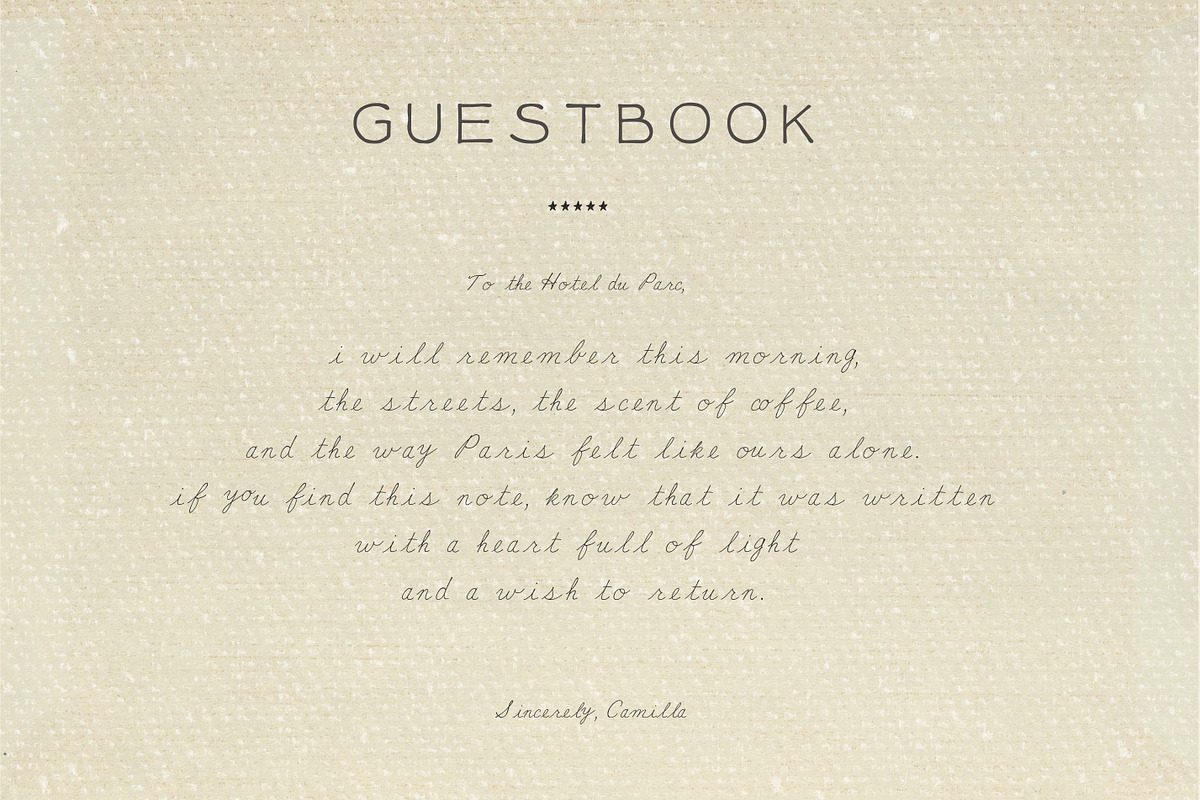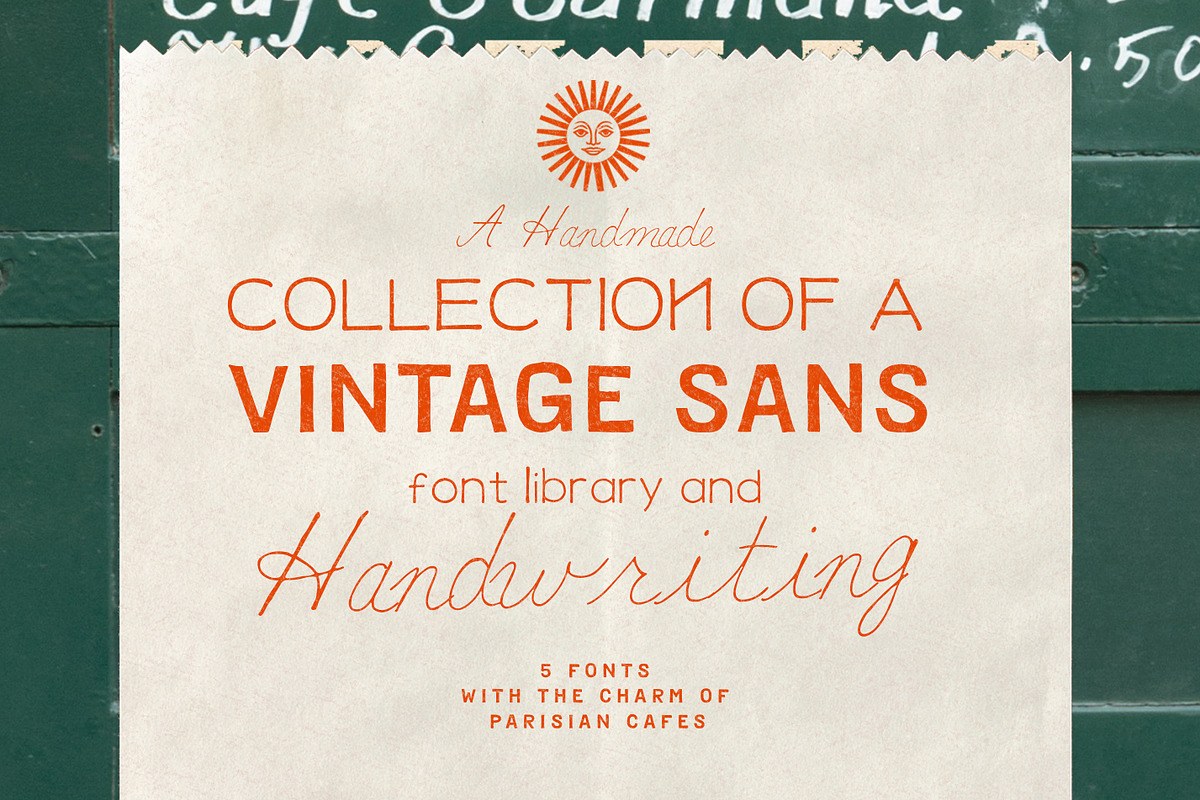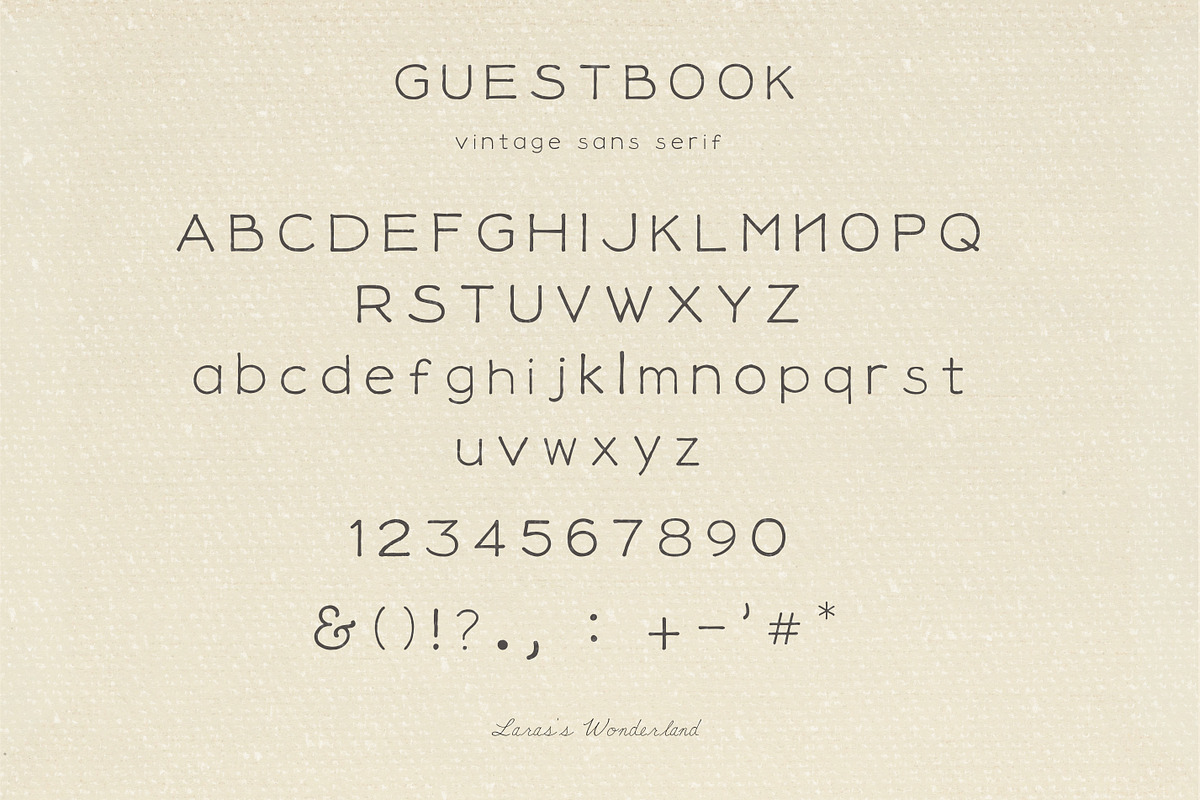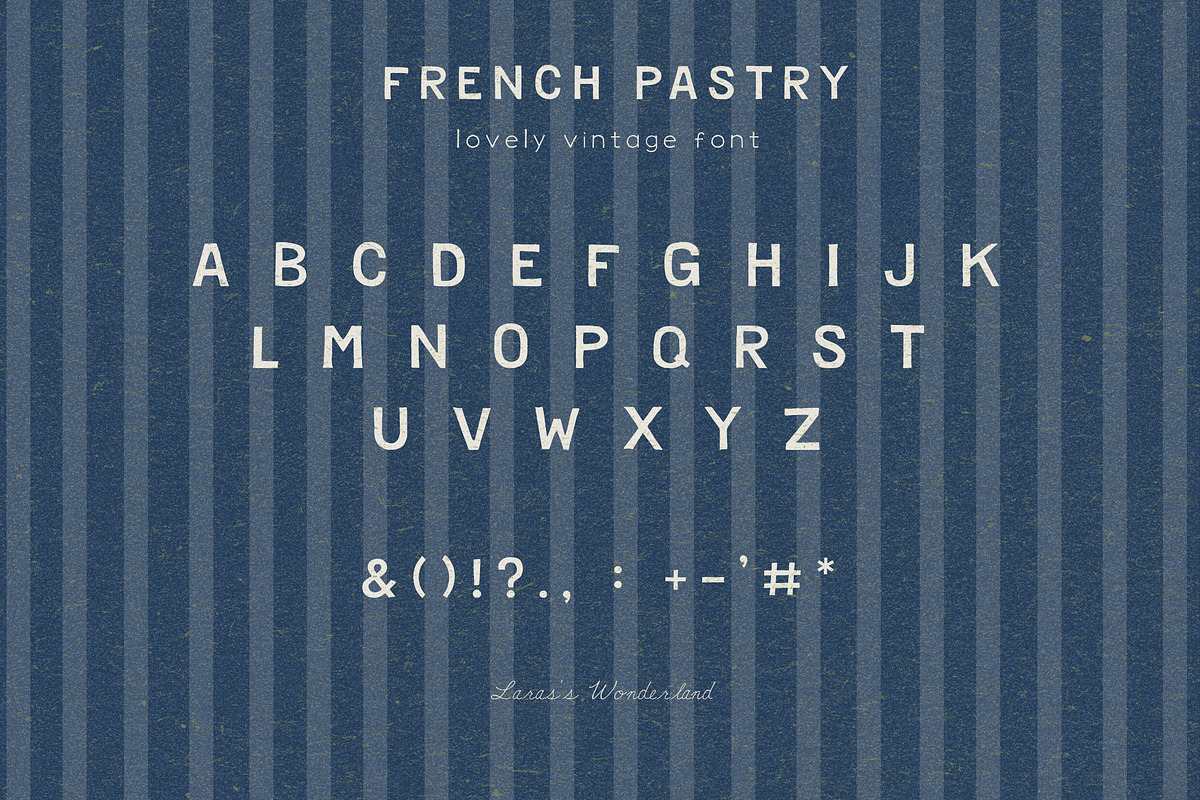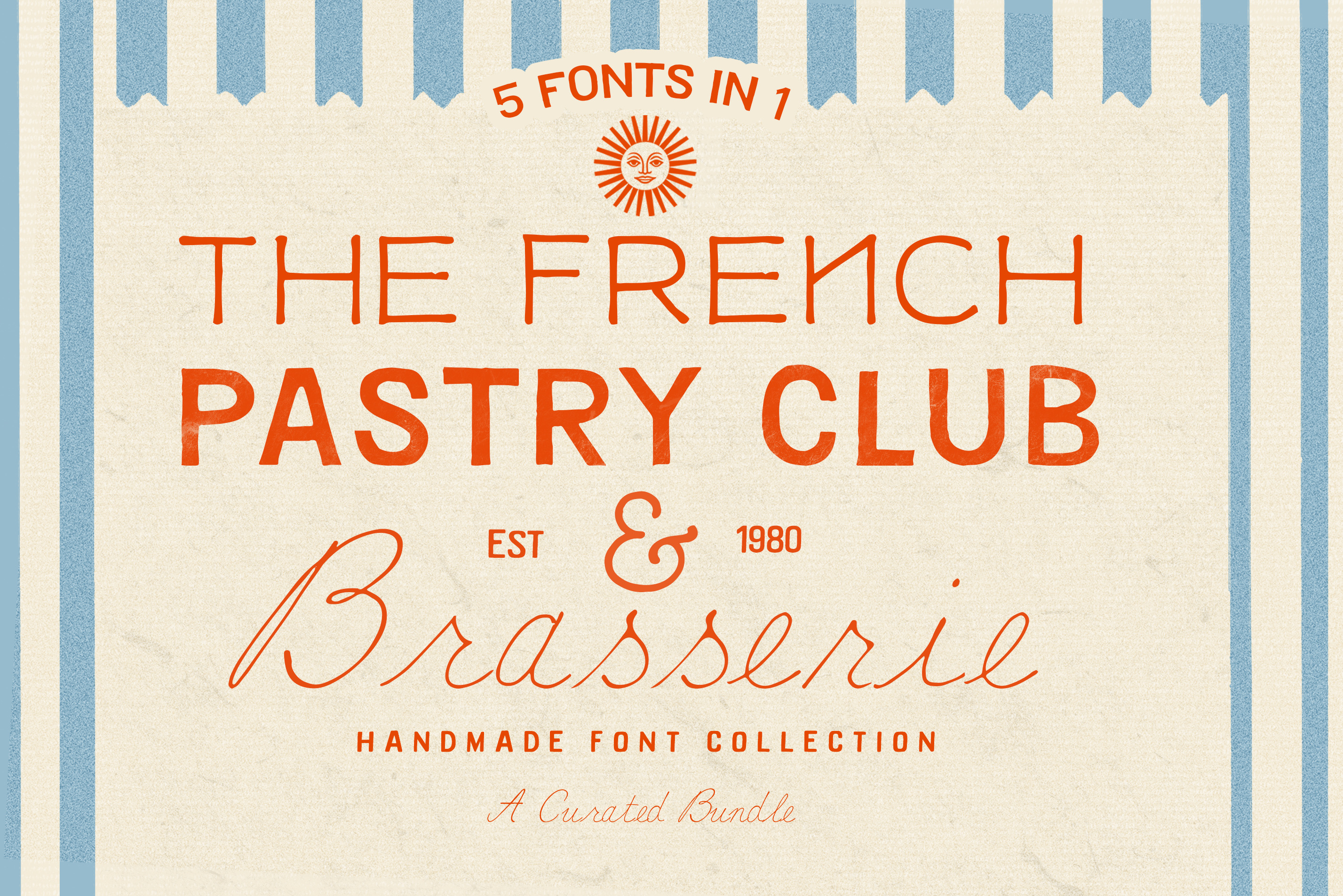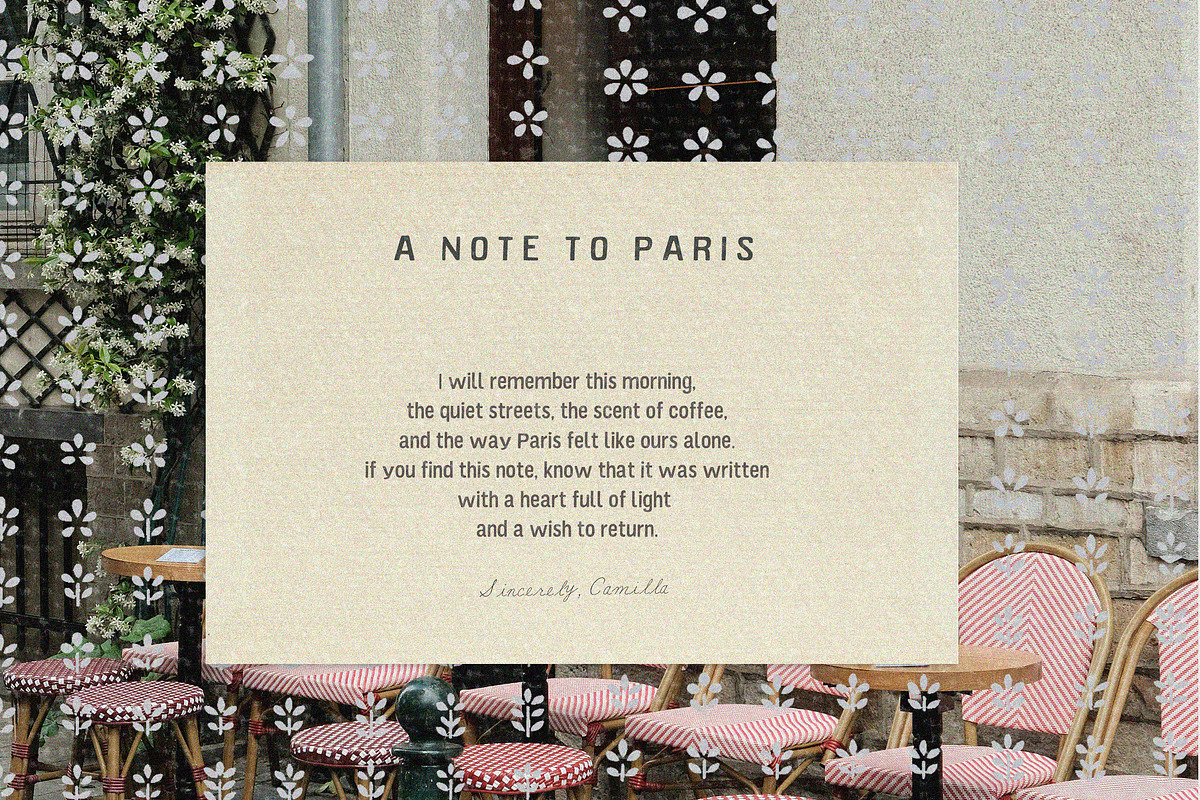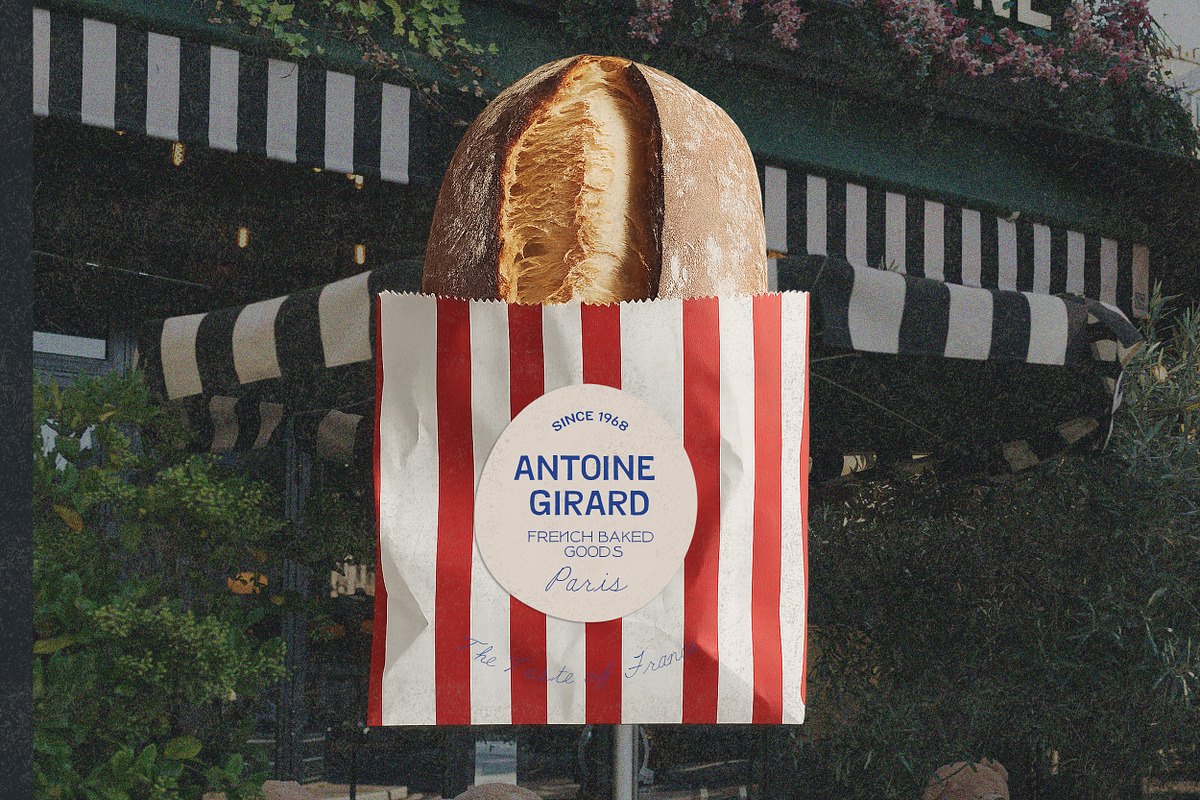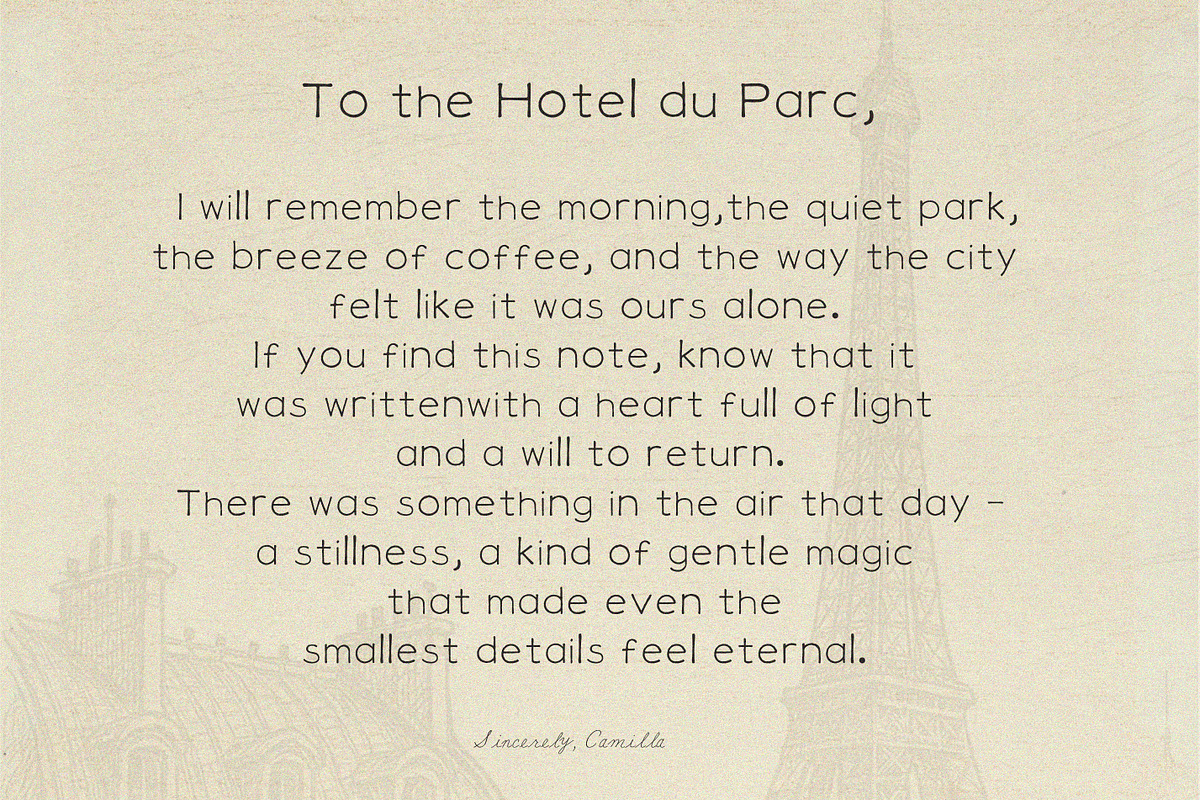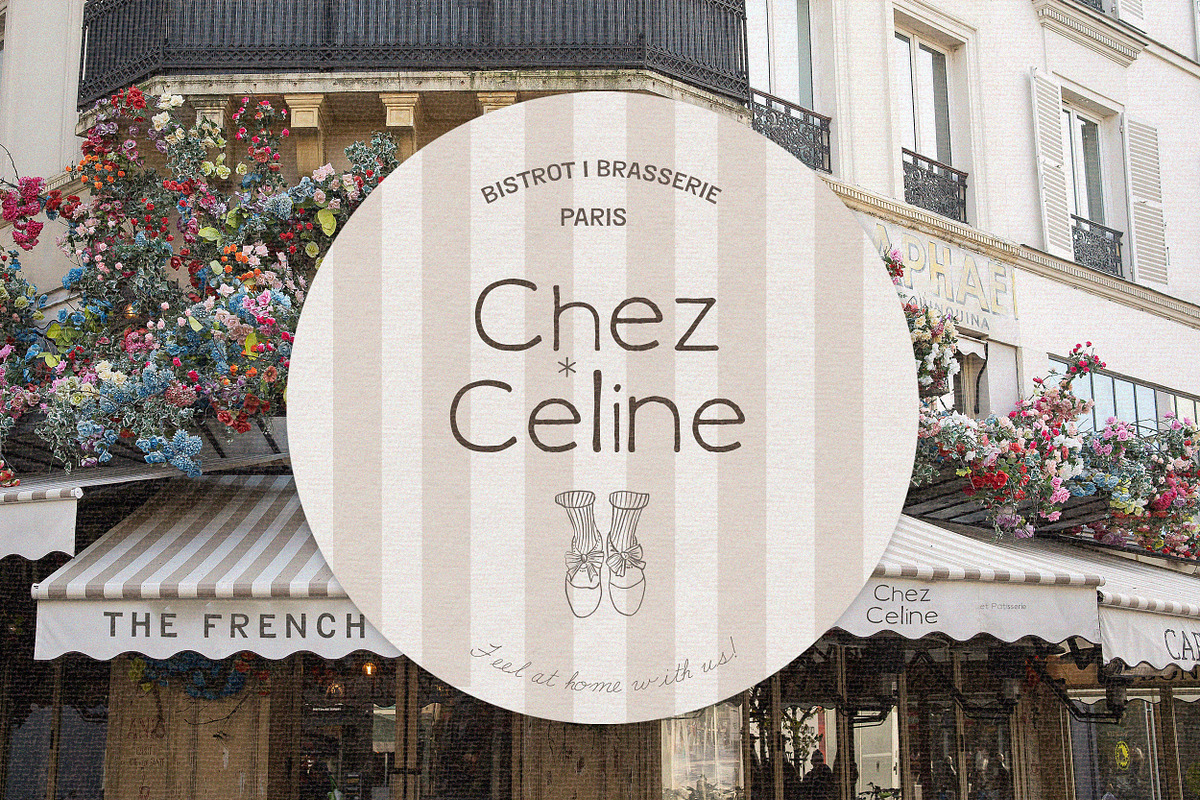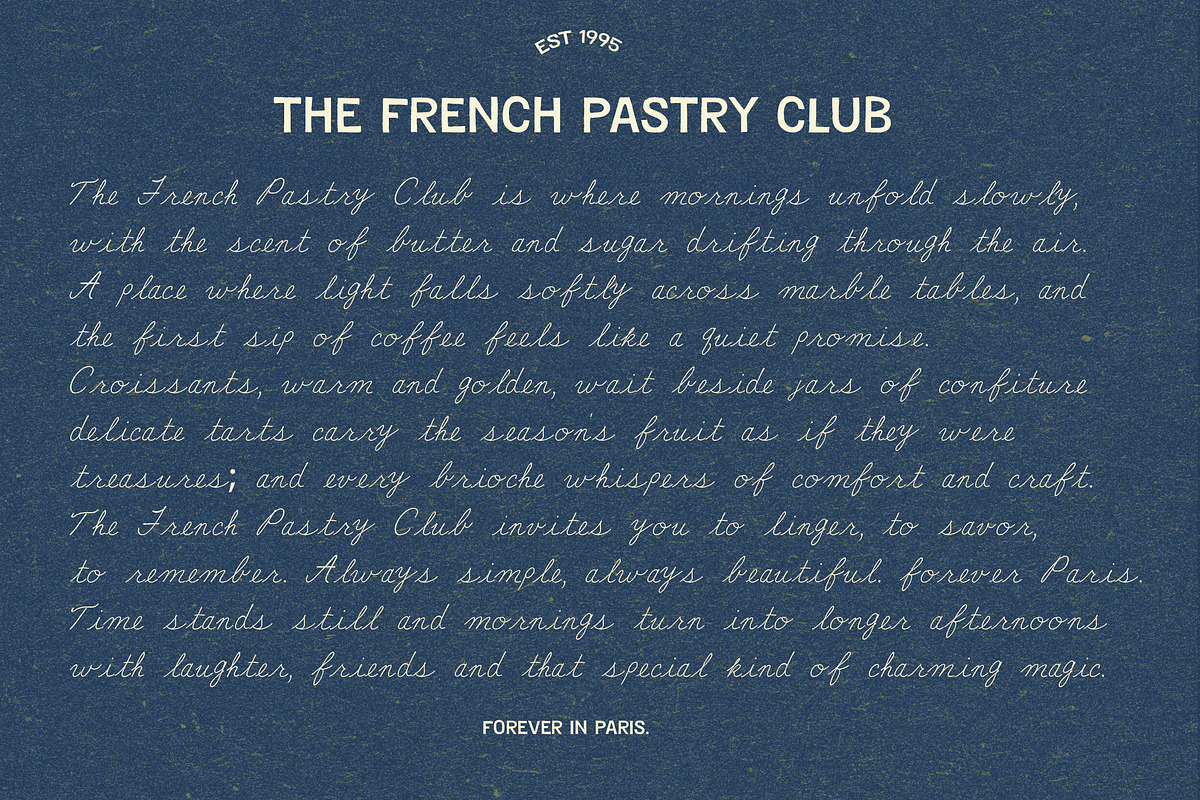
Handmade Vintage Sans & Script Font
This collection features 5 handwritten premium fonts that have been handcrafted with utmost love and care. Vintage sans serif fonts pair perfectly with a sublime handwritten note font in a selection of curated typography to add charm and the grace of a bygone era to your designs.
The French Pastry carries the charm of handwritten notes and café menus, delicate yet full of character. Vintage mailboxes, handwritten postcards and vintage restaurant branding has inspired this curated collection. A timeless companion with the elegance of classic Parisian lettering.
- FrenchPastry.Otf (an irregular vintage sans)
- PoastalNotes (an elegant handwritten script font)
- Guestbook (a vintage sans with a letterpress vibe)
- Brasserie (a clean and bold vintage sans)
Perfect for branding, packaging, editorial design, wedding stationery, and digital projects, this collection brings together the elegance of vintage notes and the rustic charm of vintage letterpress in one cohesive family.